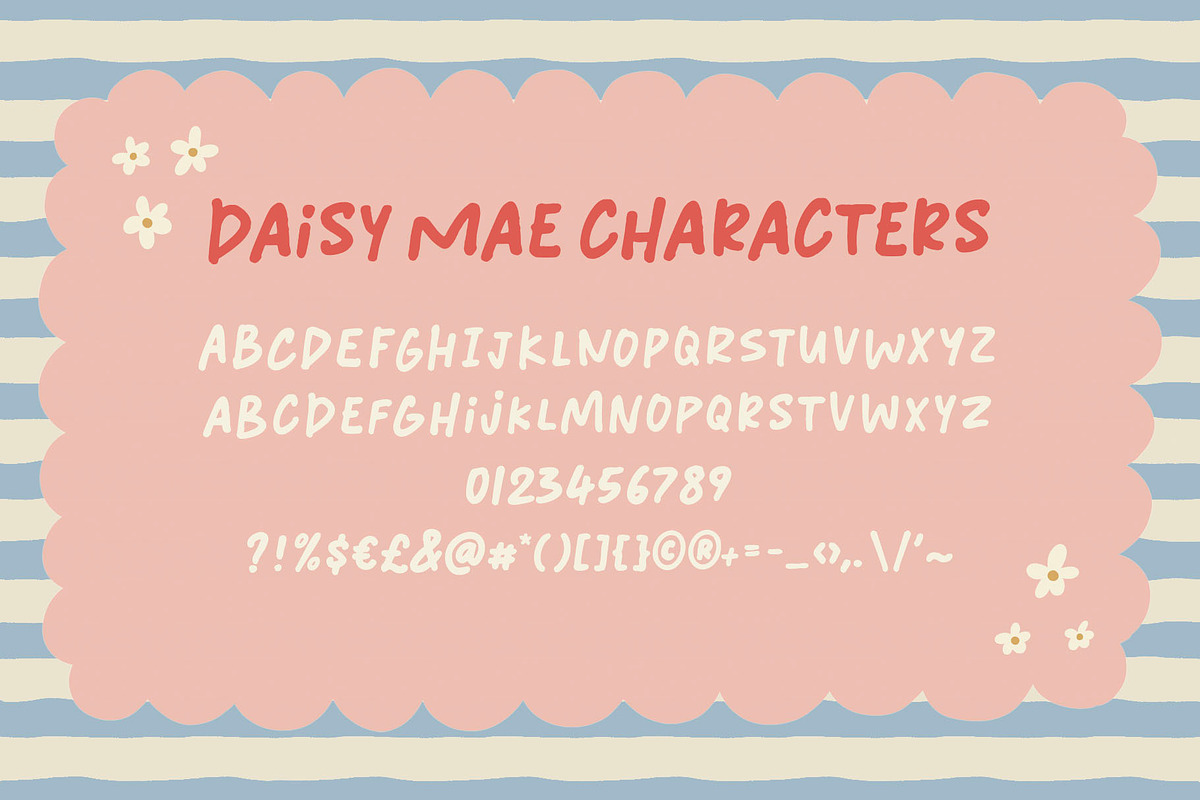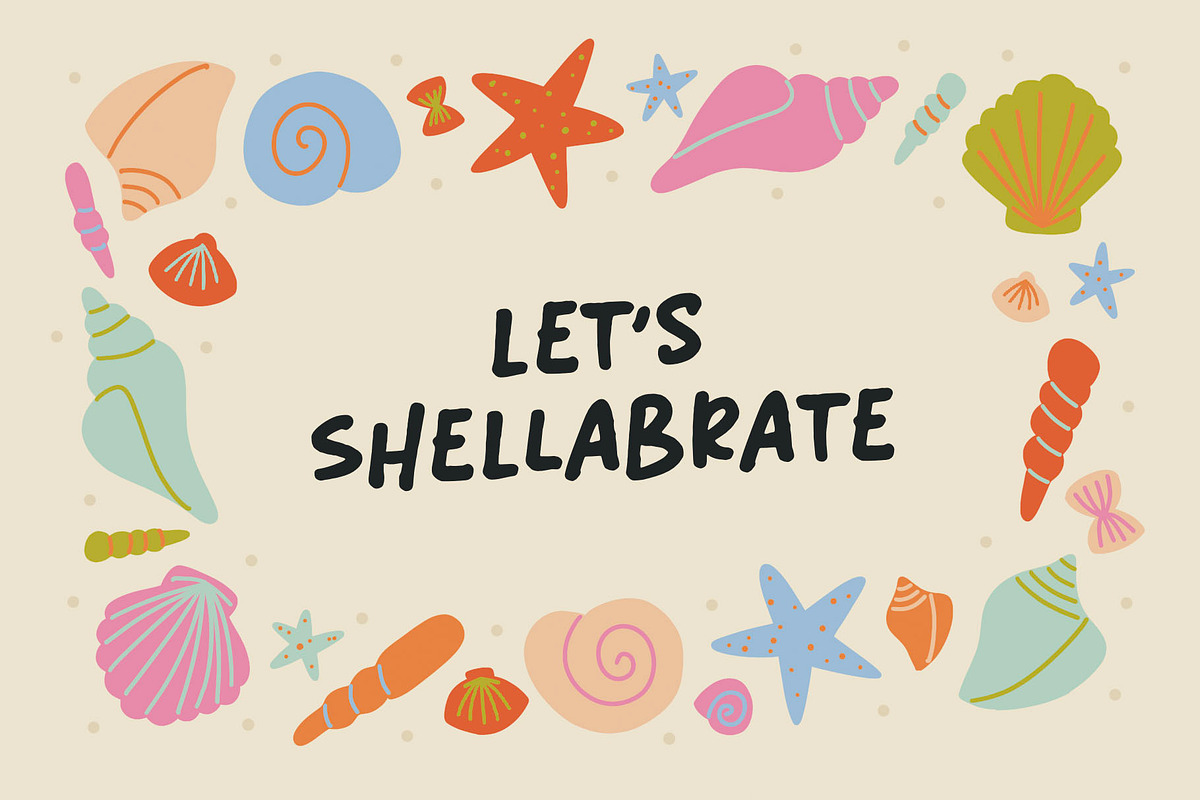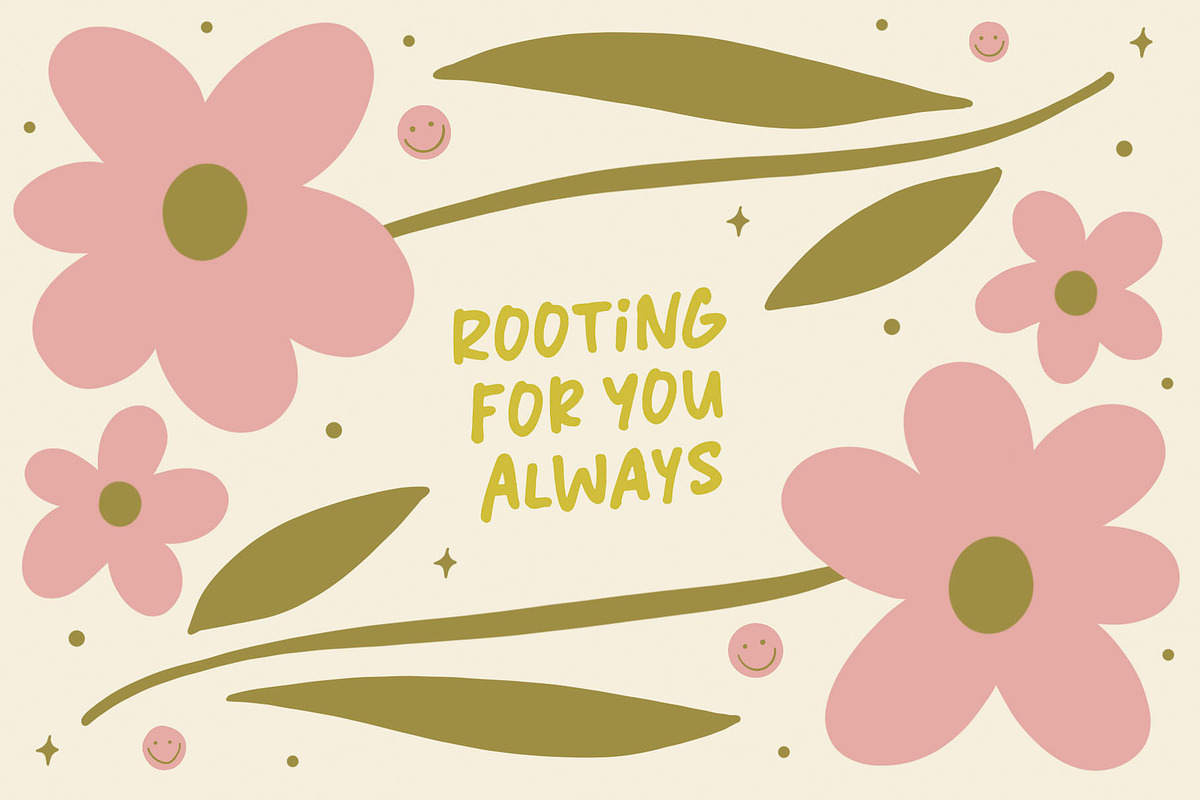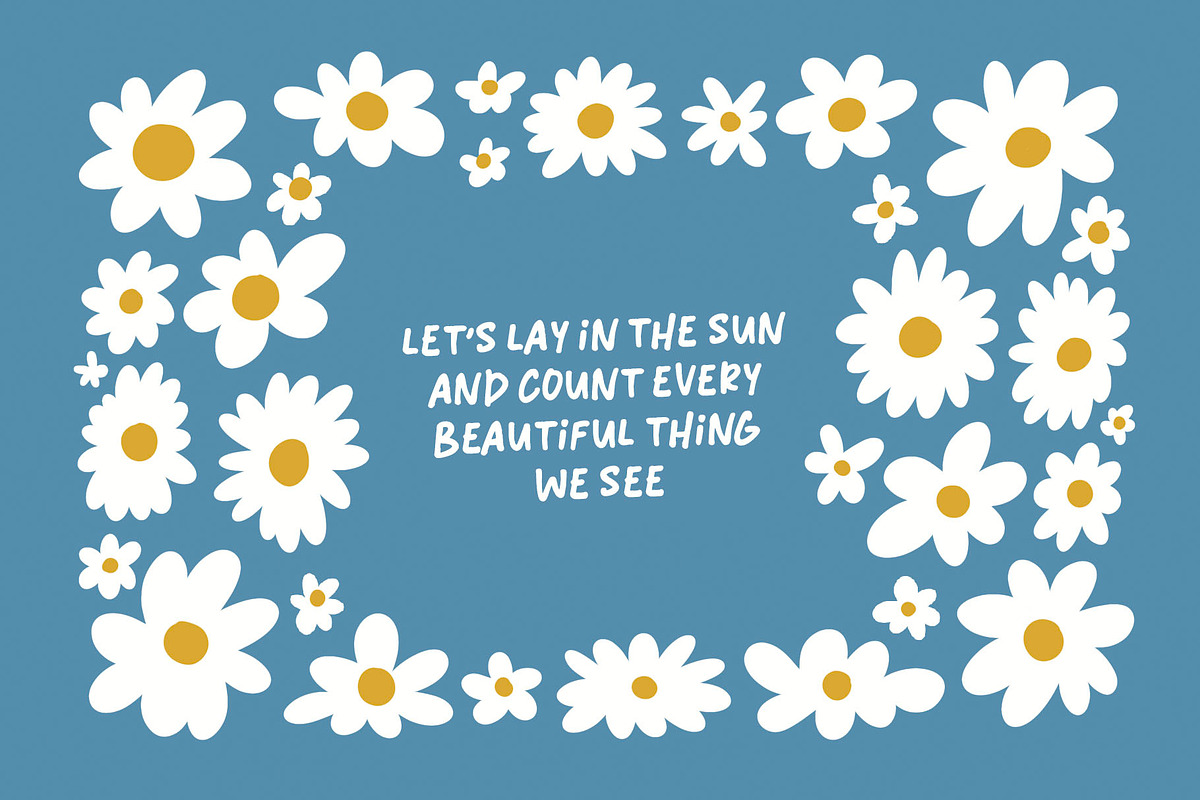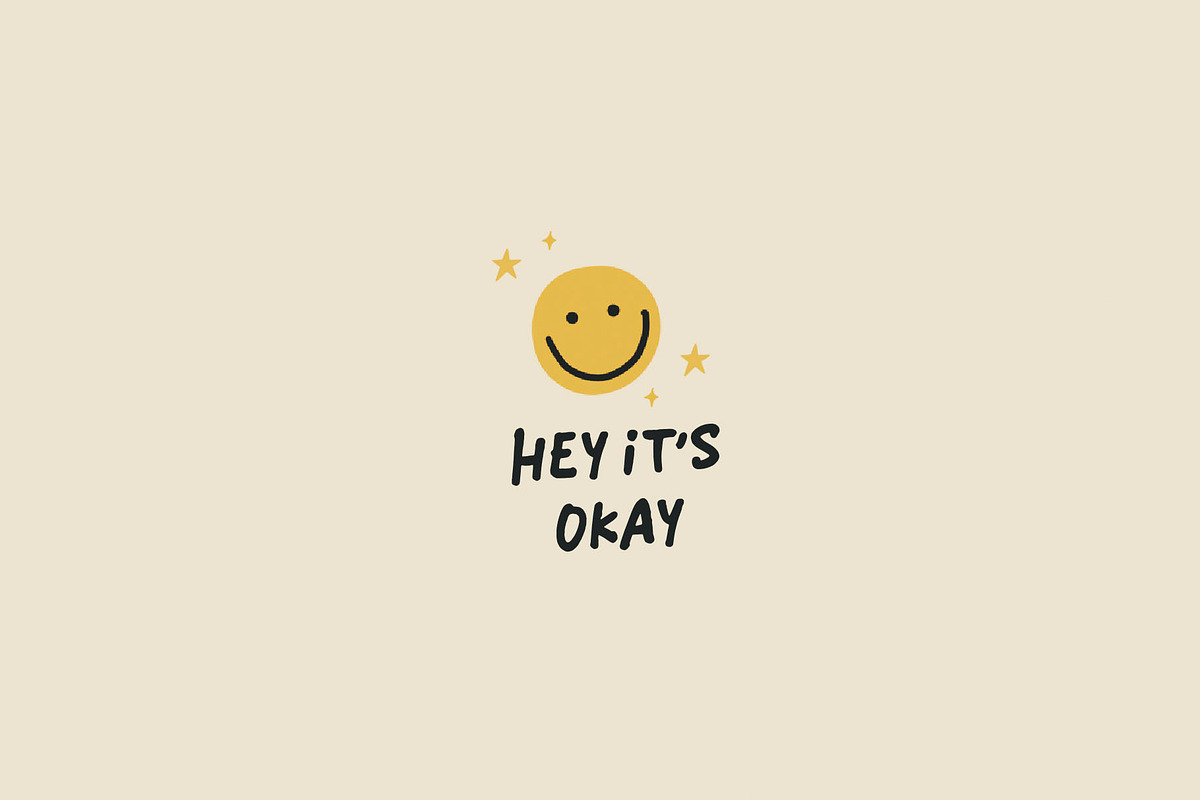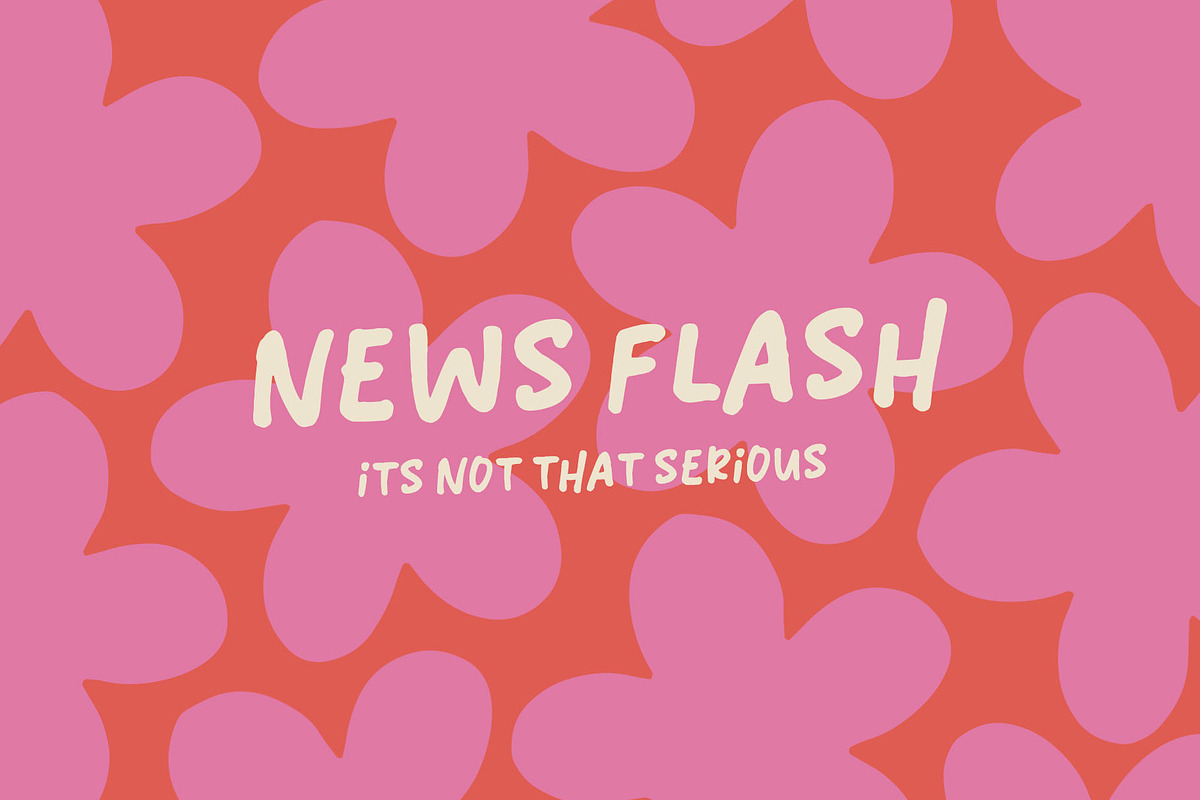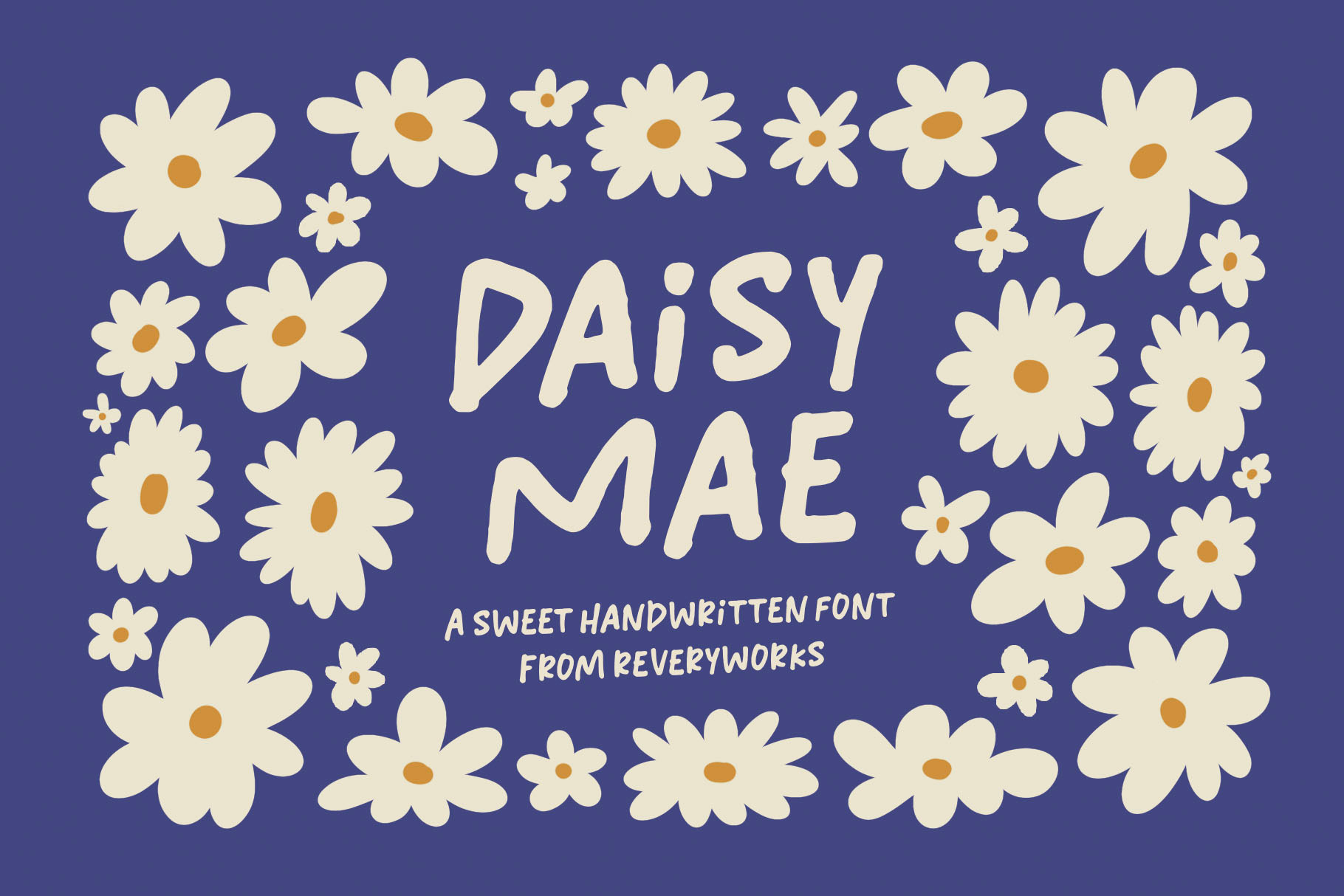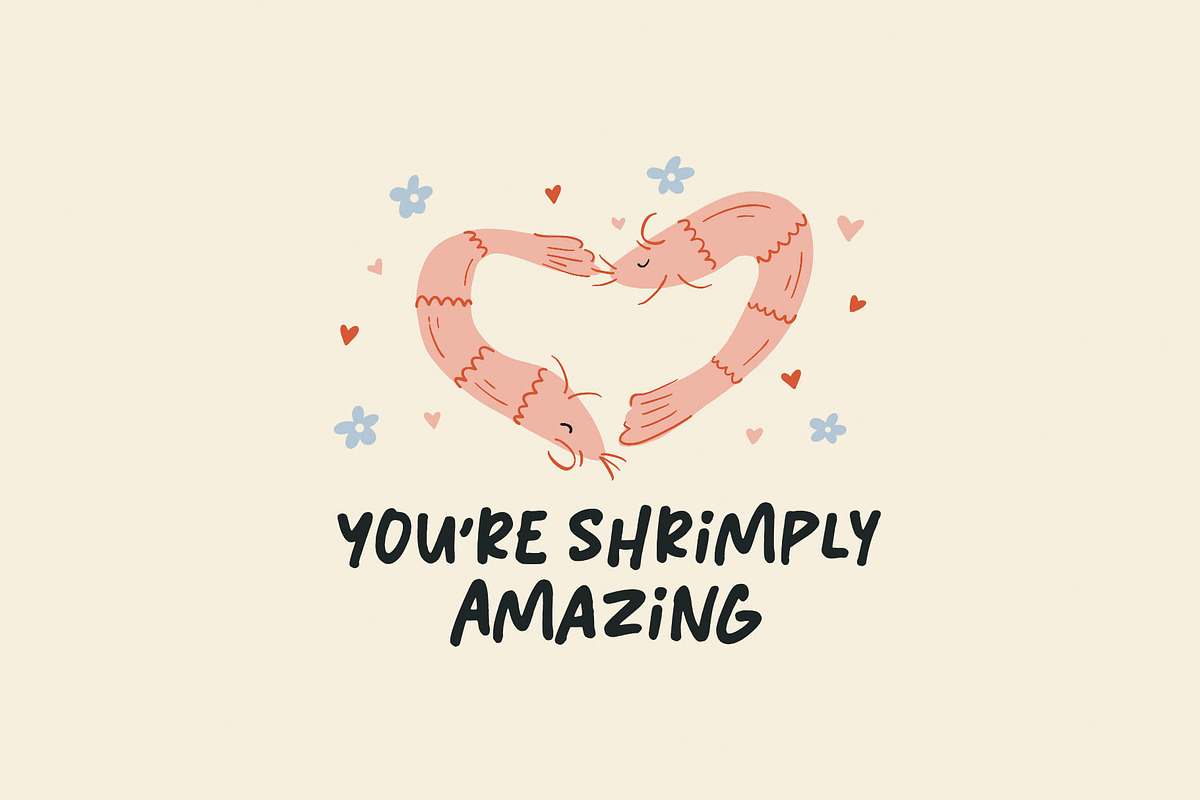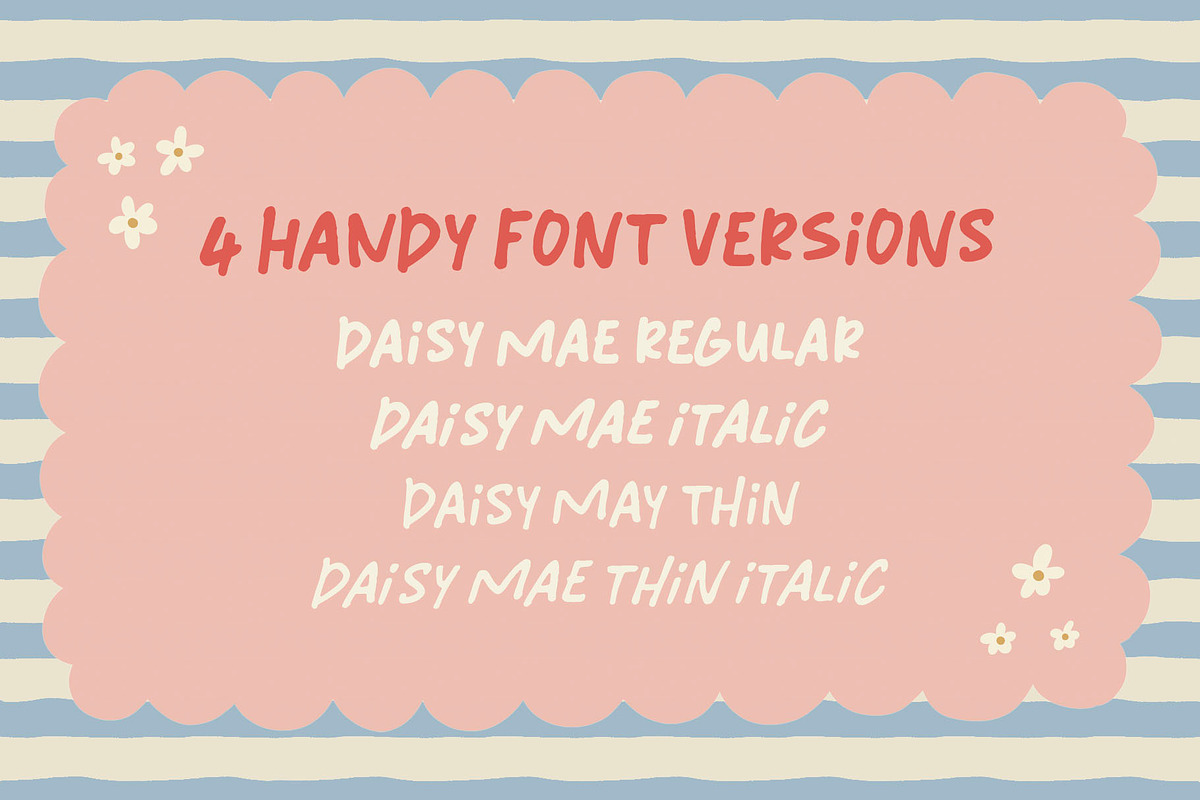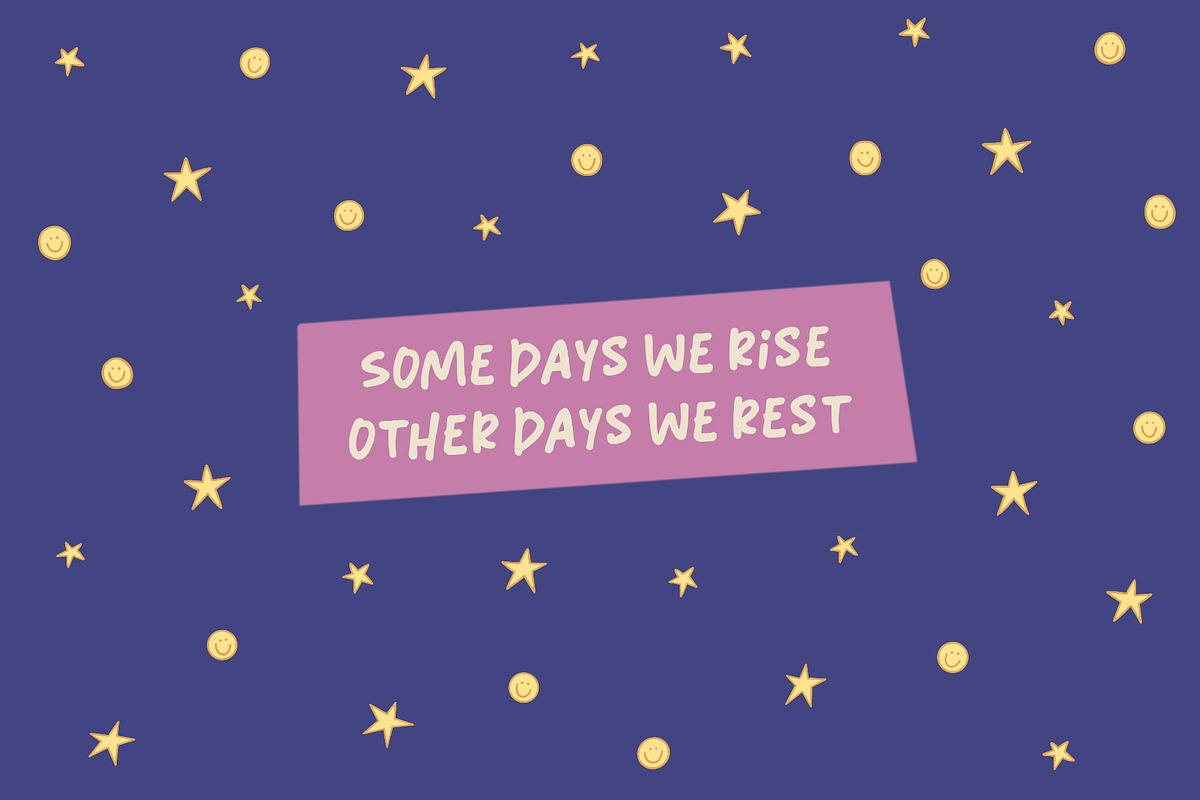
Daisy Mae Handwritten font
Introducing Daisy Mae Font! A little handwritten font inspire by good vibes. Pairs super well with doodles and drawings! Also a really cute font for wordy greeting cards!
Access alternate letters by switching between uppercase and lowercase keystrokes. It comes in 3 handy font versions: